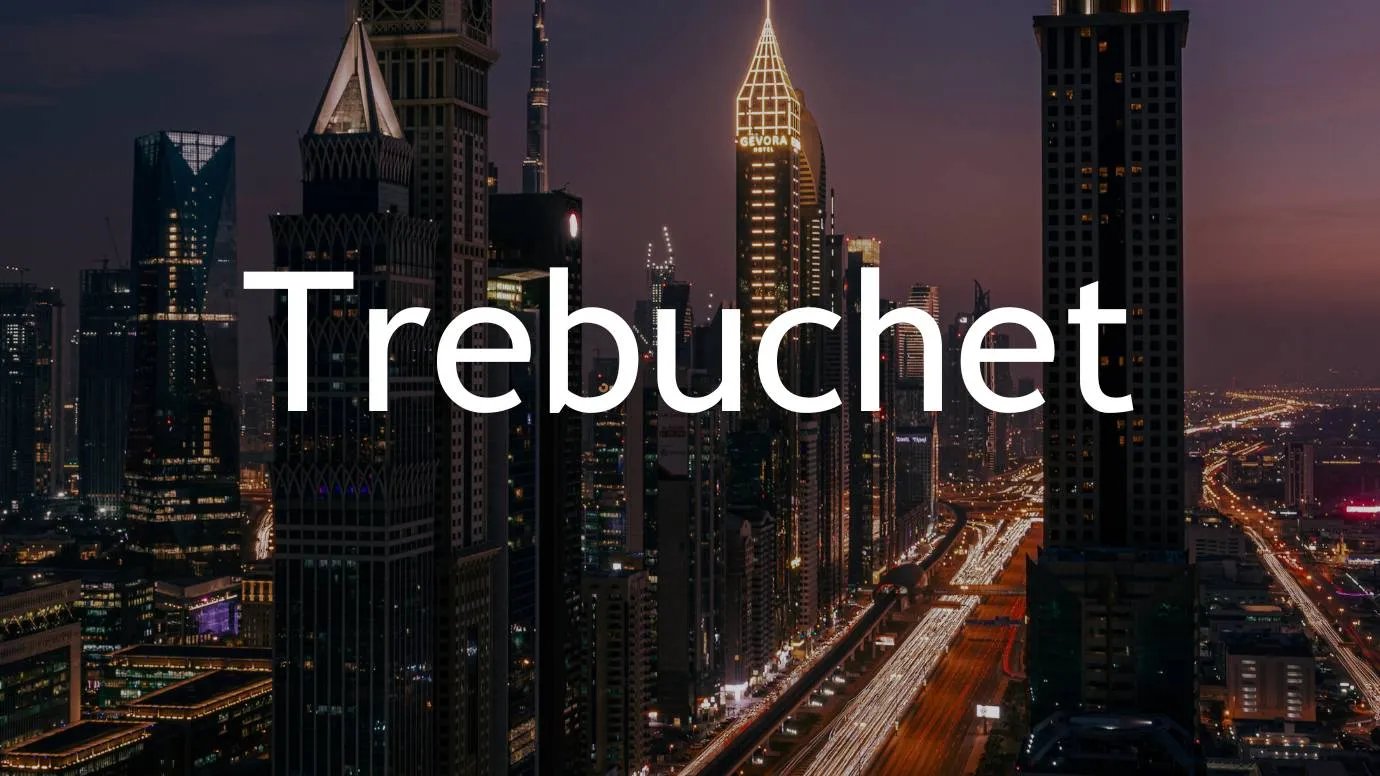
Trebuchet Font was designed by the famous font designer Vincent Connare in the year 0f 1996 under the banner of Microsoft Corporation and this is listed inside google font. The styling of this typeface is purely based on the styling of Highway Gothic Font.
This font comes with an amazing screen appearance and along with that there are many stimulating features available in this font and that feature makes this font much more constructive and worthy.
NameTrebuchet Font
TypeHumanist Sans-Serif
DesignerVincent Connare